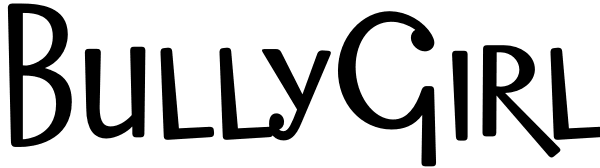
BullyGirl
BullyGirl is a two weight irregular and rollicking font. It have 3 stylistic sets for upper and lower characters for immitation of handmade typesetting. If its not enought, you can use some characters (like ABCEHKMOPTX) from the cyrillic code page...
BullyGirl Bold
BullyGirl